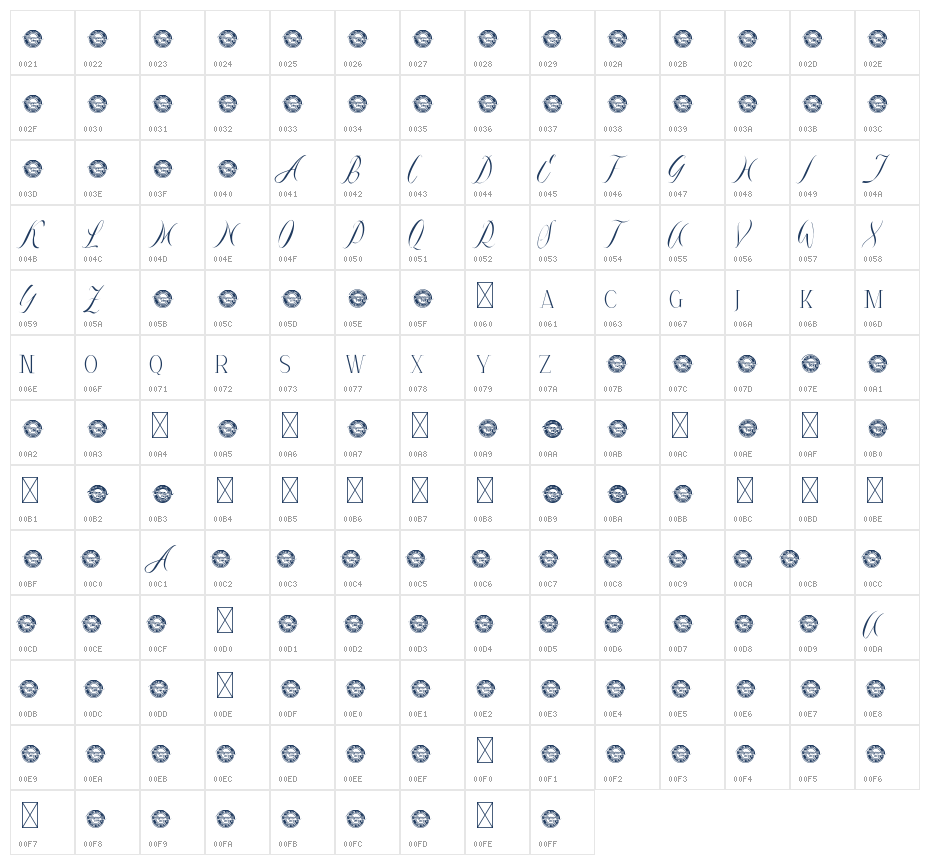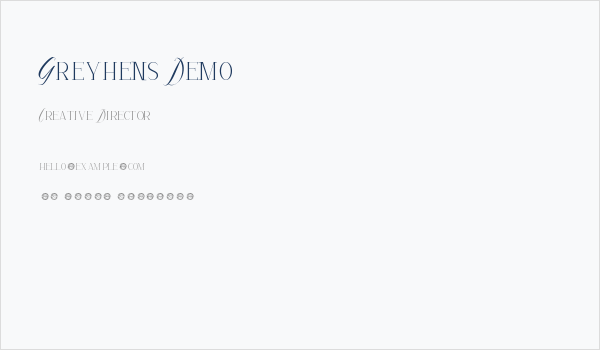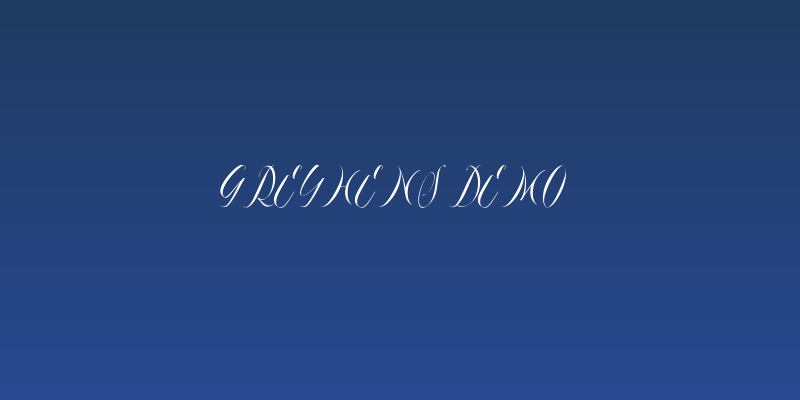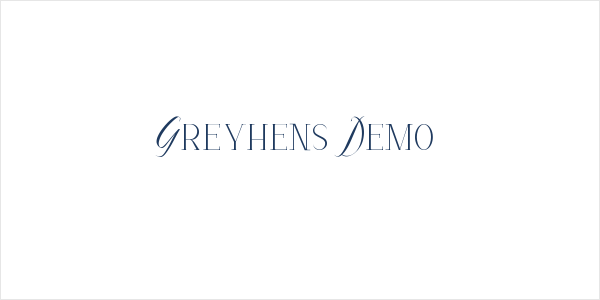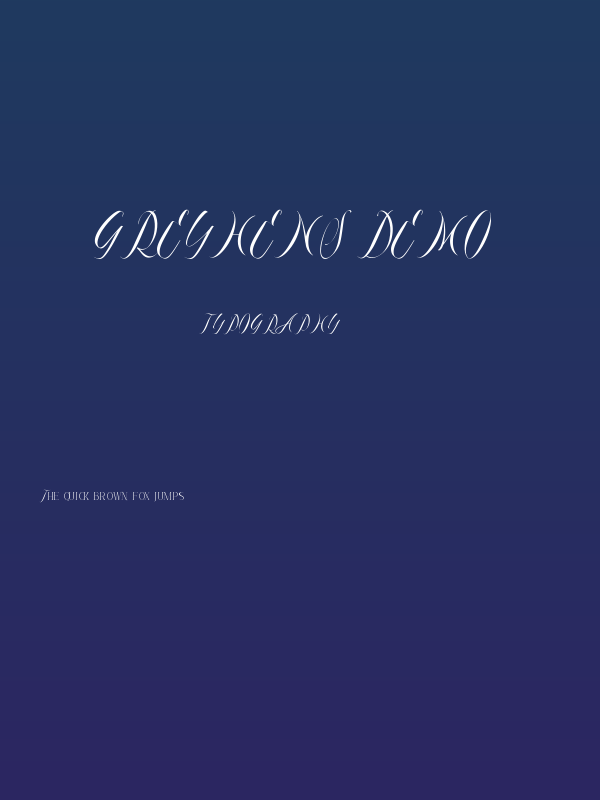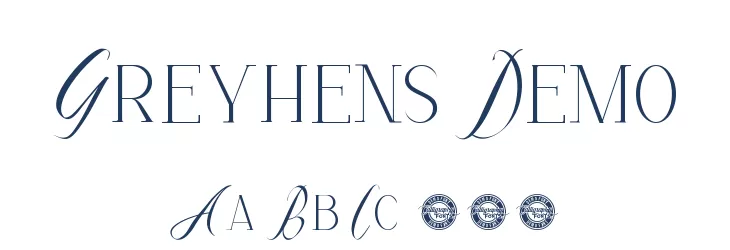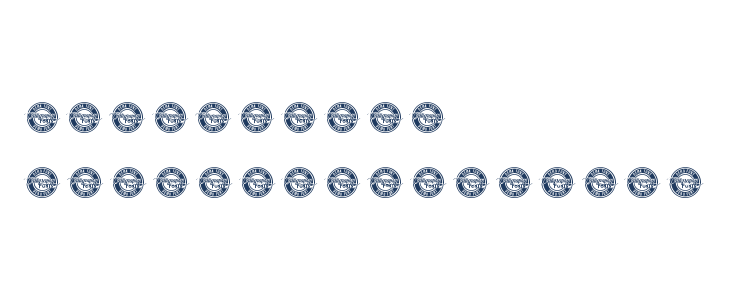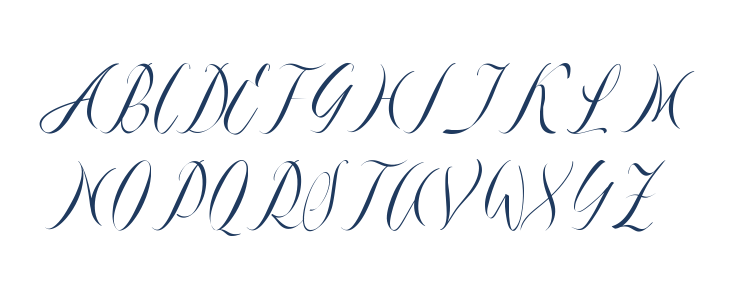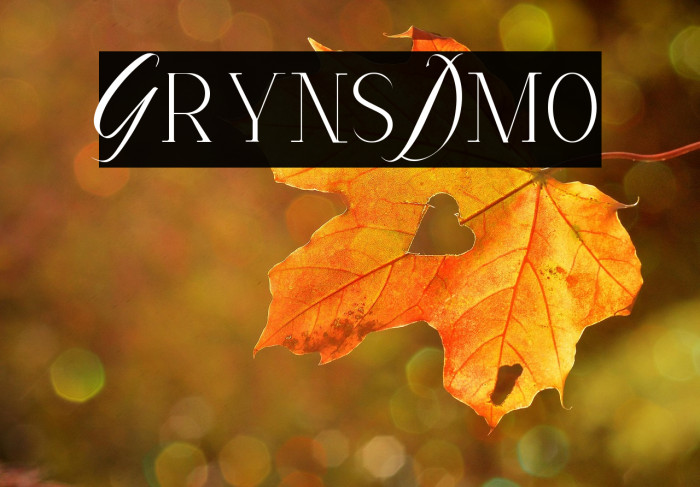
Greyhens Demo Font
✎ Calligraphic
Greyhens Demo Description
Elegant, cursive script font with flowing, calligraphic strokes and high contrast between thick and thin lines.
| Overall Style | Elegant, Calligraphic, Decorative |
| Use Case | Invitations, logos, branding, decorative text. |